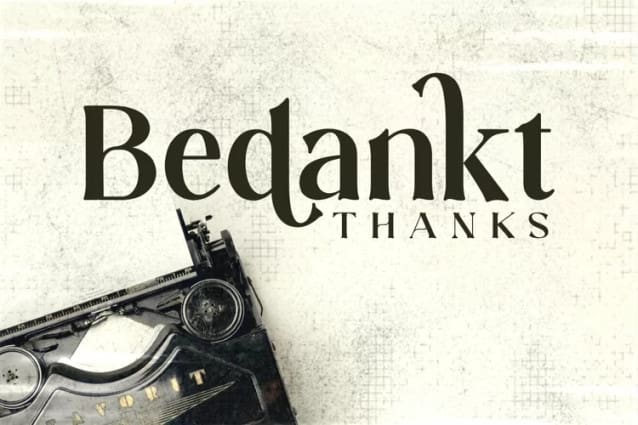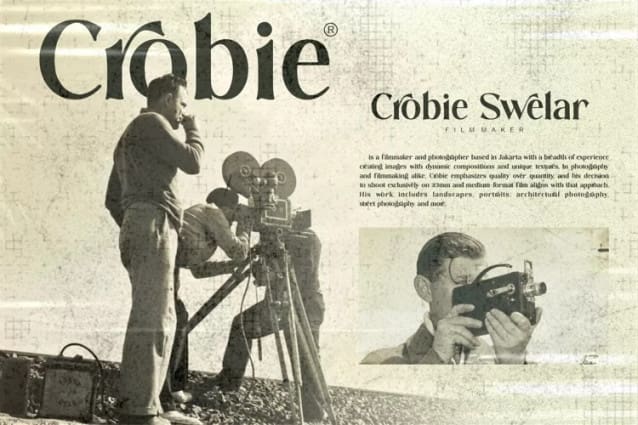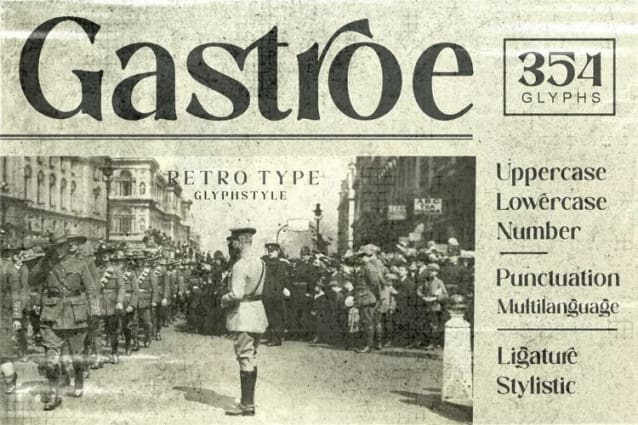
Gastroe Font
Gastroe Font is a display font with a retro, old and vintage look. old feeling but still stylish with several stylistic ligatures that can be used. clean font and old feel.
Gastroe is perfect for branding projects, logos, wedding designs, social media posts, advertisements, product packaging, product designs, labels, photography, watermarks, invitations, stationery and any project that requires a font with retro and vintage vibes